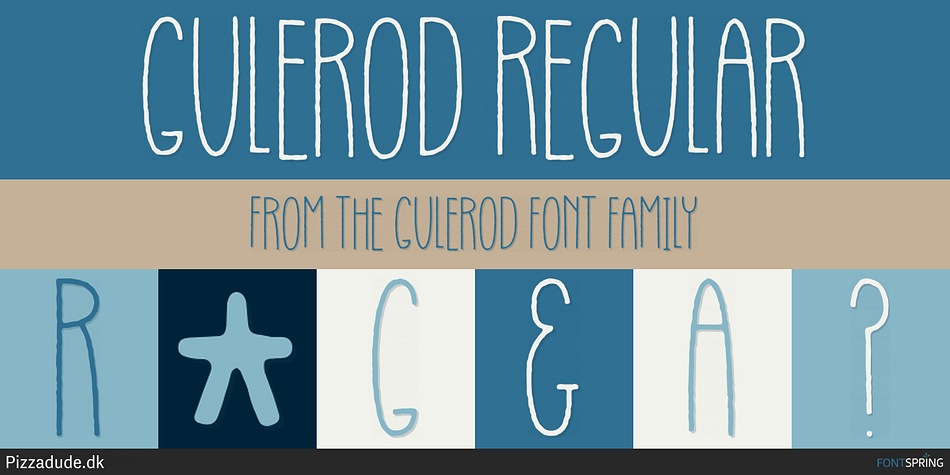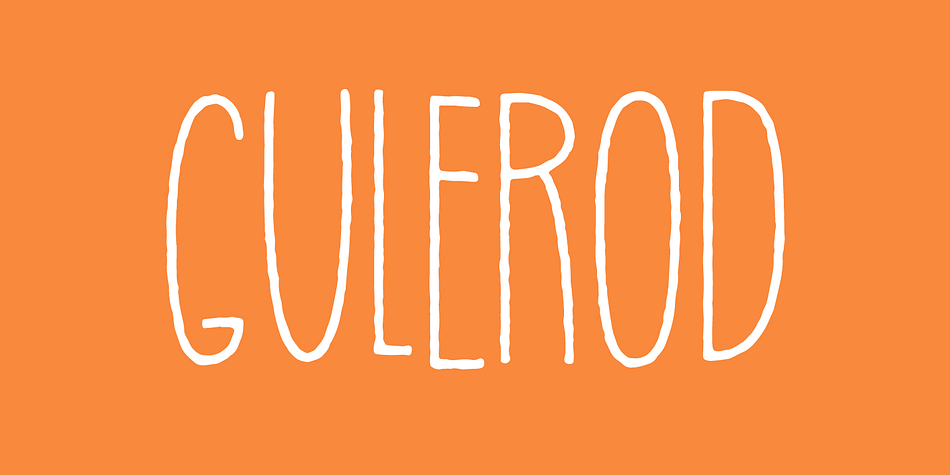
GULEROD REGULAR
Designed by Jakob Fischer, Gulerod is a hand display font published by Bogstav.
Gulerod is carrot in danish - you know healthy root you should eat on a daily basis. The tall and slim letters in this font was inspired by ... a carrot!
Suitable for headlines that needs that handdrawn, steady and very legible look!